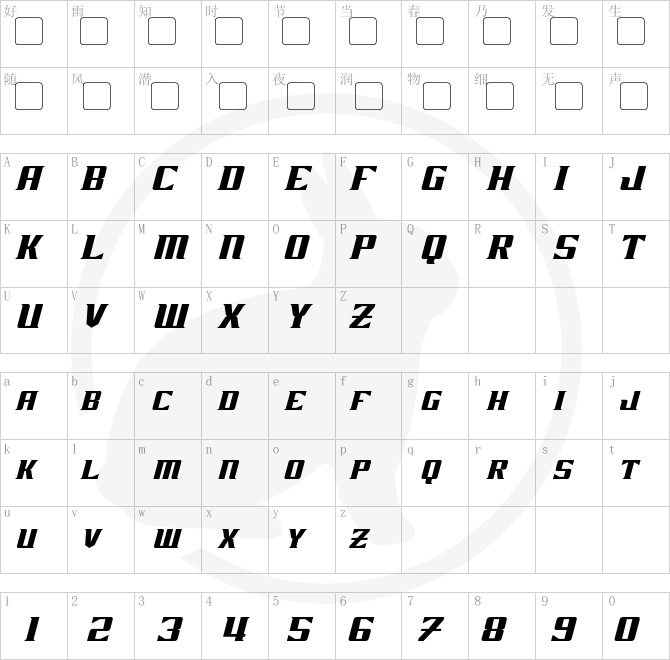
- Font Name:Zarathos
Zarathos-Italic.ttf is a very beautiful artistic font, Zarathos-Italic.ttf is widely used in the design and printing of various books and pictures,Zarathos-Italic.ttf has a strong visual impact,Zarathos-Italic.ttf is a commonly used font in newspapers, magazines and books, and is used in posters, e-commerce Poster design, store design, logo design, font design and other fields.Zarathos-Italic.